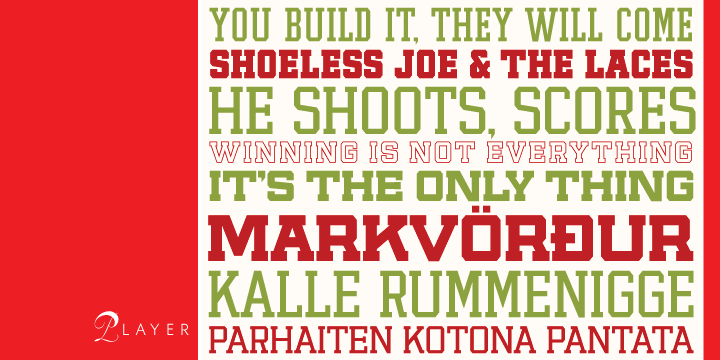
Player Pro is a display slab font family. This typeface has eleven styles and was published by Canada Type.
The Player family started as a straight-forward revival of a film face called Ivy League, an early 1970s VGC classic that was very popular with designers of sports paraphernalia. A few hundred liters of coffee later, the revival of a single condensed font has become an 11-font ambitious attempt at being the last word in athletic lettering.
For the serious athletic jersey and sports collateral designer, here are a few of the advantages the Player family has over other “college” and “varsity” fonts:
- Three widths and three weight allow for player names of any length to be accommodated. Long player names don’t have to be cramped above or warped around the numbers anymore, and short player names can be sightly and readable while occupying the same space as other names.
- Two outlines fonts that were not done mechanically, but manually and very carefully constructed with no filter shadows or loose points. Every stroke was measured and accounted for both mathematically and optically, and some forms were redrawn to remain visually appealing in an open design.
- Built-in alternate forms for A, E, F, R, S, V and W, the most commonly differing letters between athletic lettering fonts. For example, there are four different forms of the letter A: One topped up with 2 serifs, one with just the left top serif, one with no top serifs at all, and one with straight sides.
- A very expanded character set of over 530 characters in each of the 11 fonts. This means support for Western, Central, and Eastern European languages, as well as Baltic, Celtic/Welsh, Cyrillic/Russian, Esperanto, Greek, Maltese, Turkish, and Vietnamese.
- A cross-platform Open Type family entitled Player Pro, with alternates programmed for automatic substitution at the push of a button in OT-supporting programs.